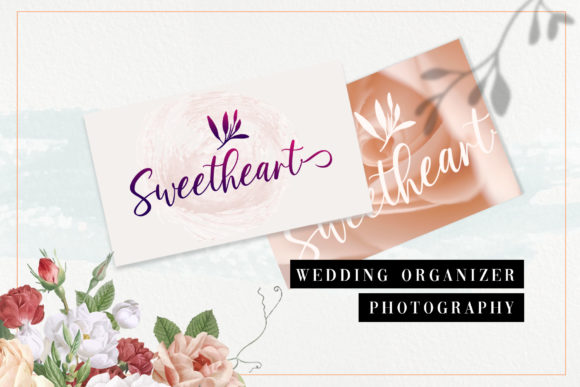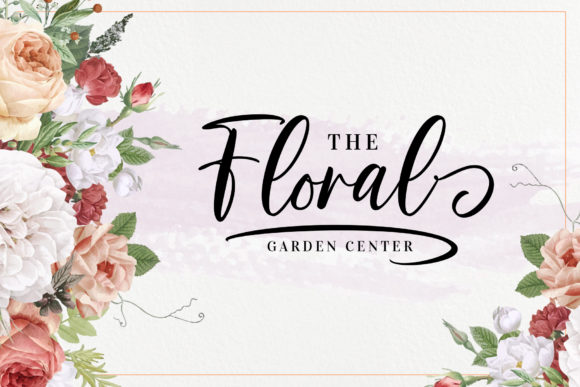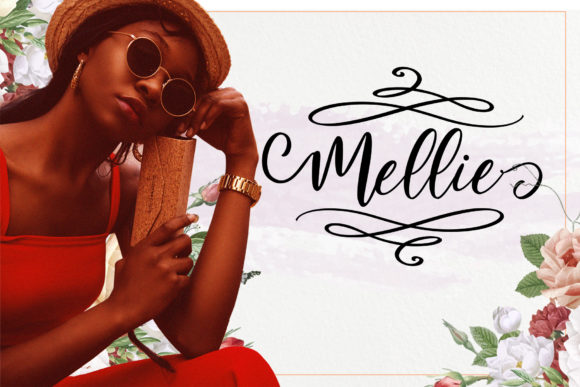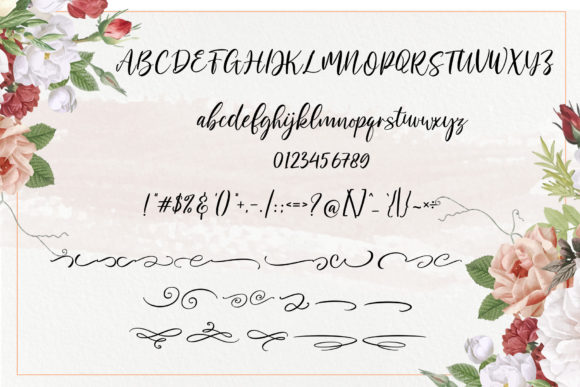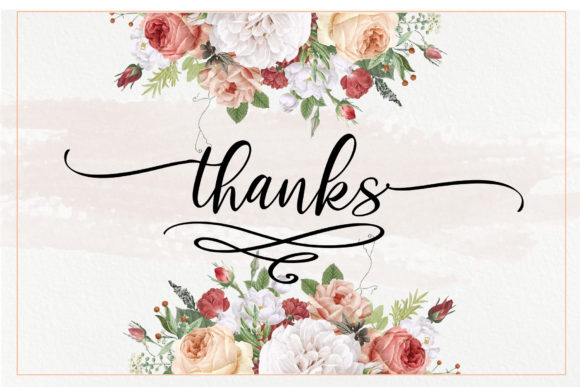
Certifies Font
About Certifies Font
Certifies is a unique, cool and modern calligraphy font. It’s handwritten style makes it a perfectly versatile font for any occasion!